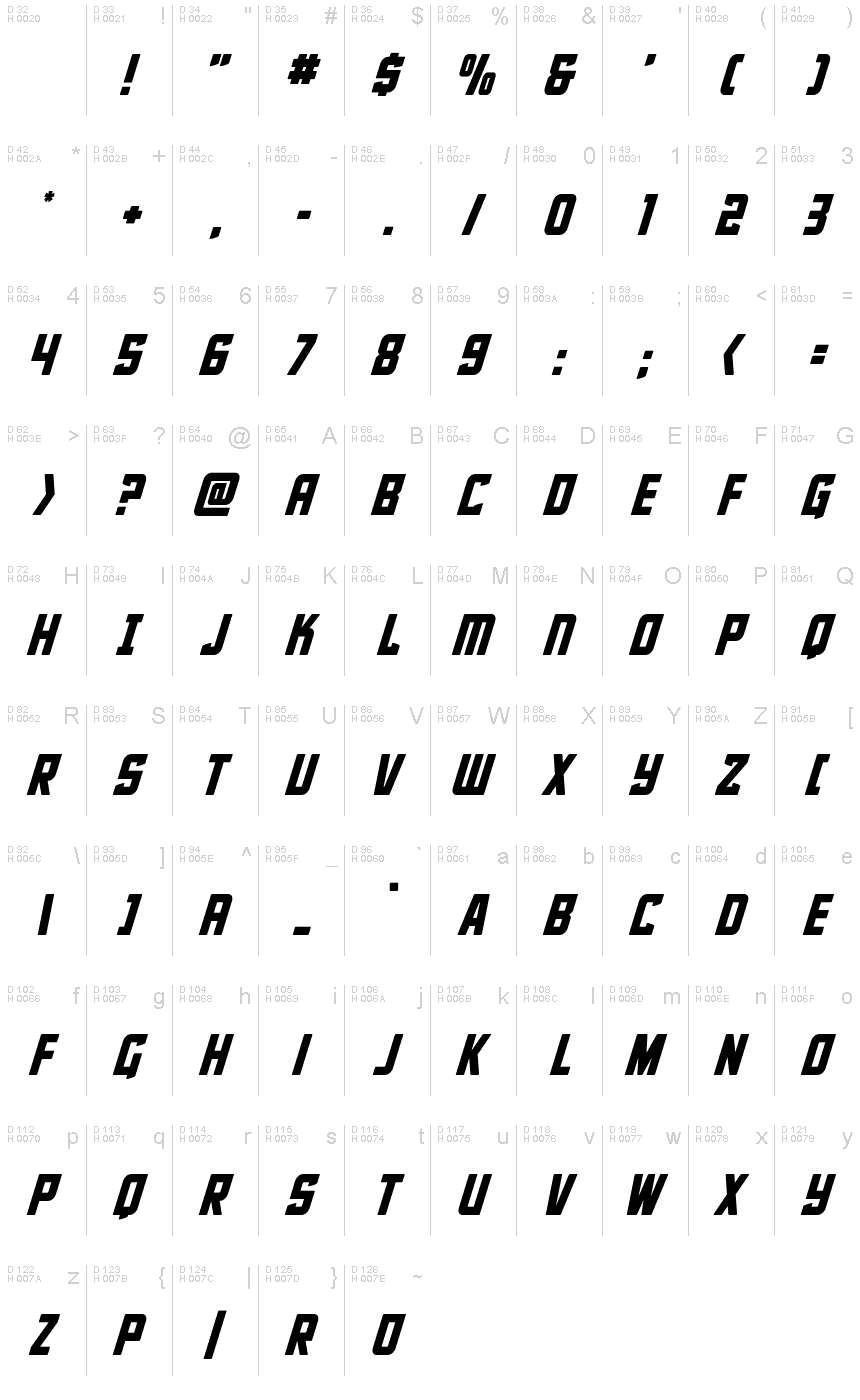
Phantom Storm Italic
The Phantom Storm Italic font from Iconian Fonts is the perfect choice for projects that require a bold and futuristic design. With its condensed width and semi-bold weight, this display typeface exudes power and confidence. Its techno style adds an edgy feel to any design, making it ideal for use in gaming or technology-related projects, as well as modern branding or advertising campaigns. The sleek lines and sharp angles of the Phantom Storm Italic font lend a dynamic quality to any text, making it stand out on posters, flyers, websites, or logos. Give your project an electrifying touch with Phantom Storm Italic!